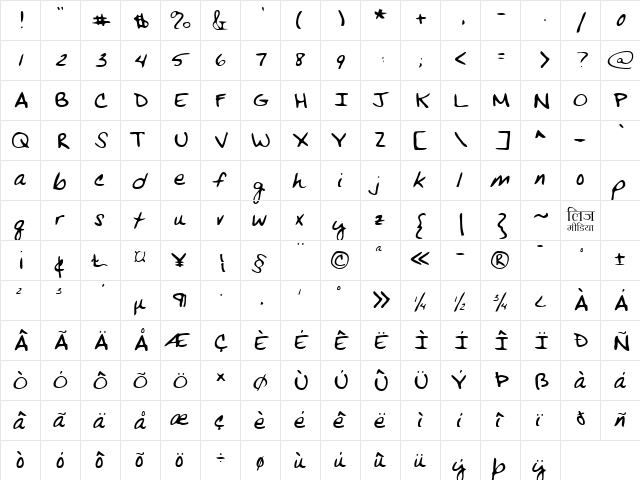
LEHN269 Regular
Design Context for LEHN269 Typeface
LEHN269 takes a measured approach to typography — its balanced proportions and neutral character make it a reliable workhorse for both digital and print work.